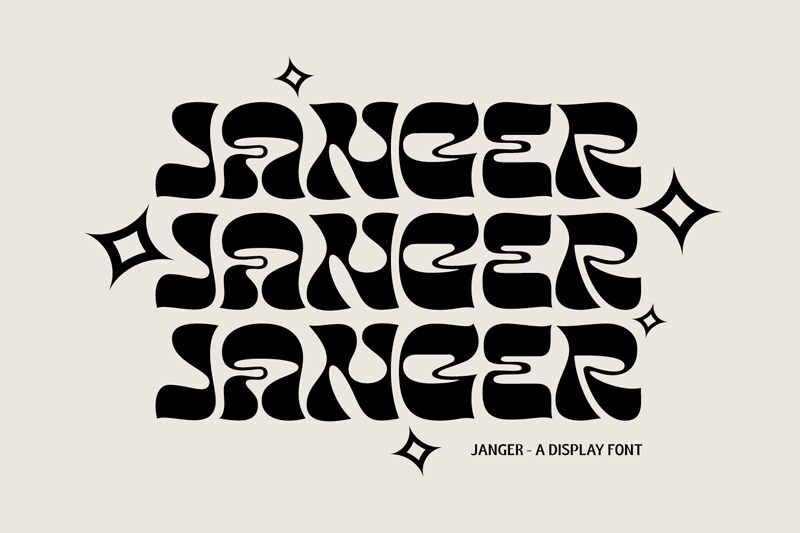
Janger Regular
Janger font by Creative Media Lab is a groovy display font whose style brings back the artistic aesthetics of the 60s and 70s. Retro-inspired, Janger’s letters combine geometric shapes with an organic flow, showing high contrast between thick and thin parts. A bit psychedelic, colorful, and incredibly fun, the font is visually striking and unique.
Use this free display typeface in your posters, album covers, advertising campaigns, magazine covers/titles/headings/articles (printed or digital), postcards/personal cards or greeting cards/gift cards design projects when you require a bold eye-catching font to leave an impression on readers.